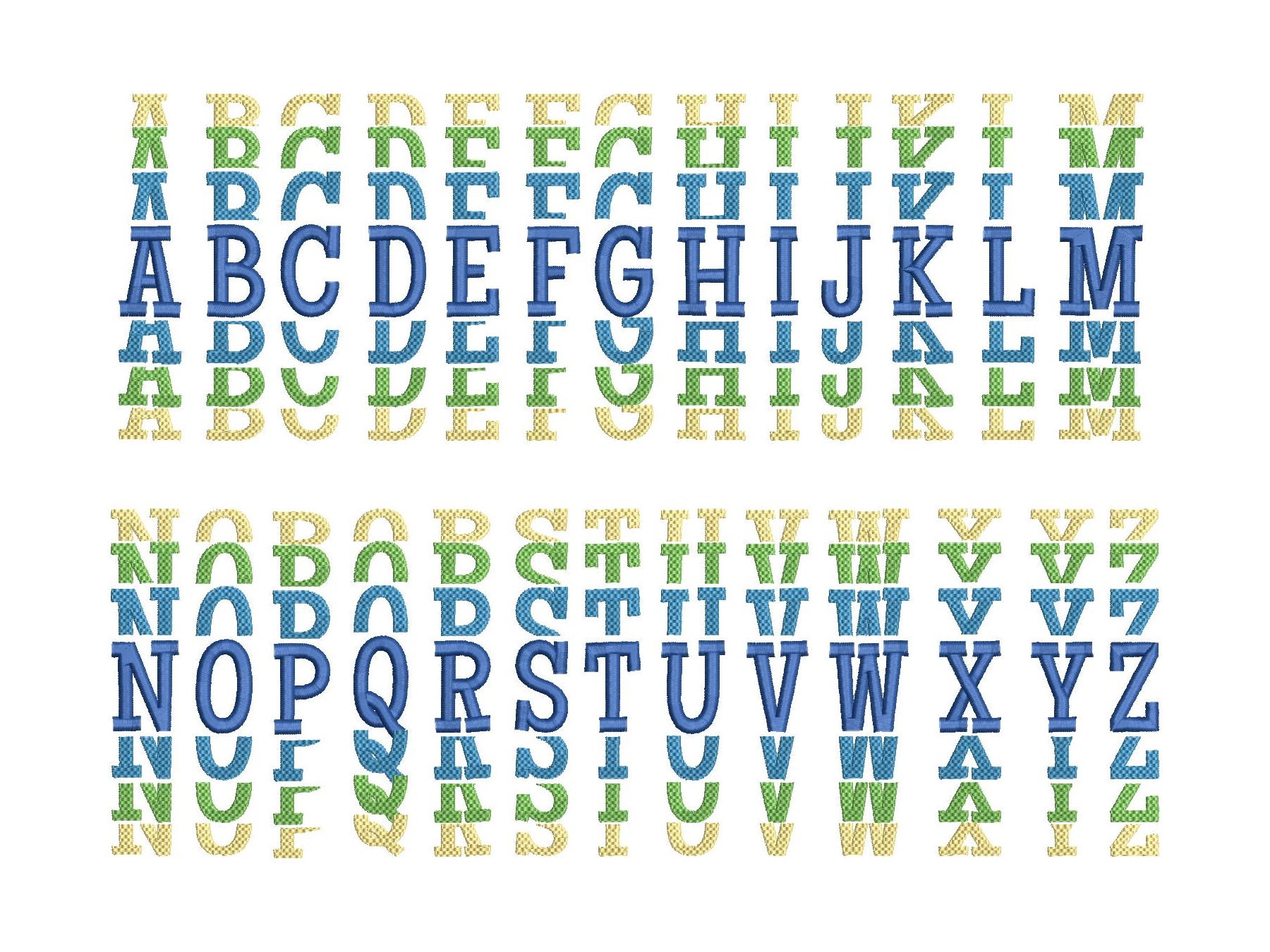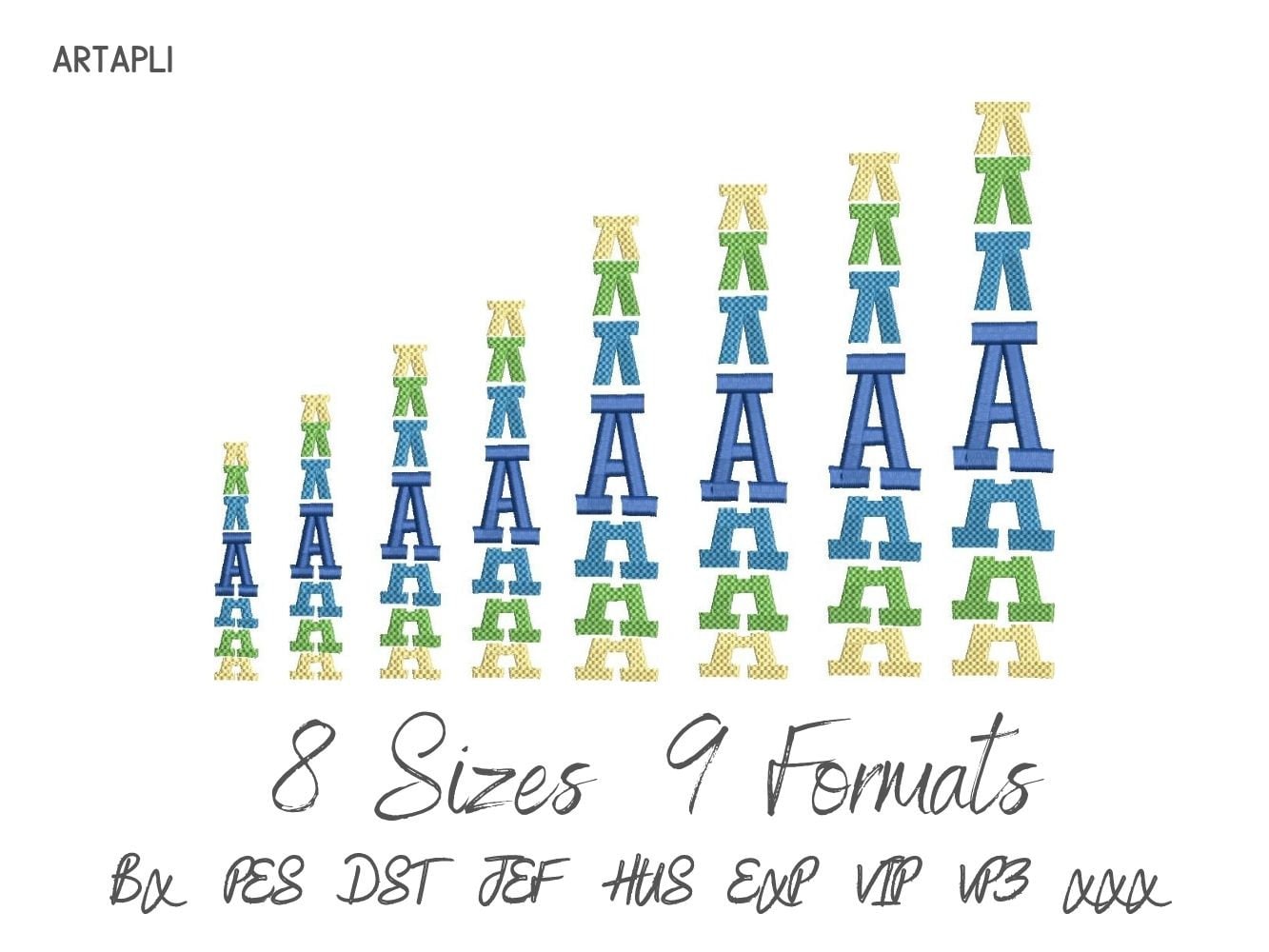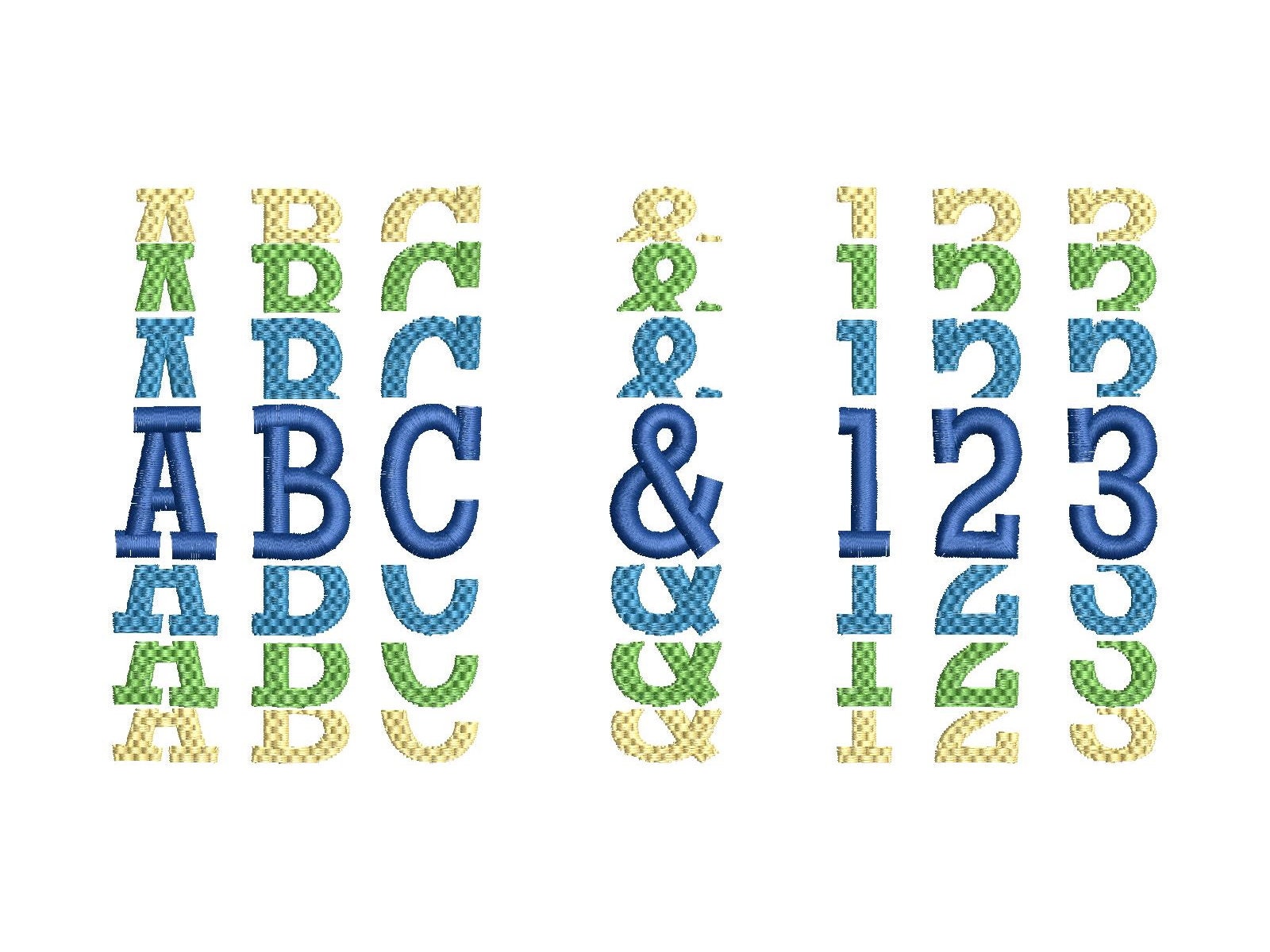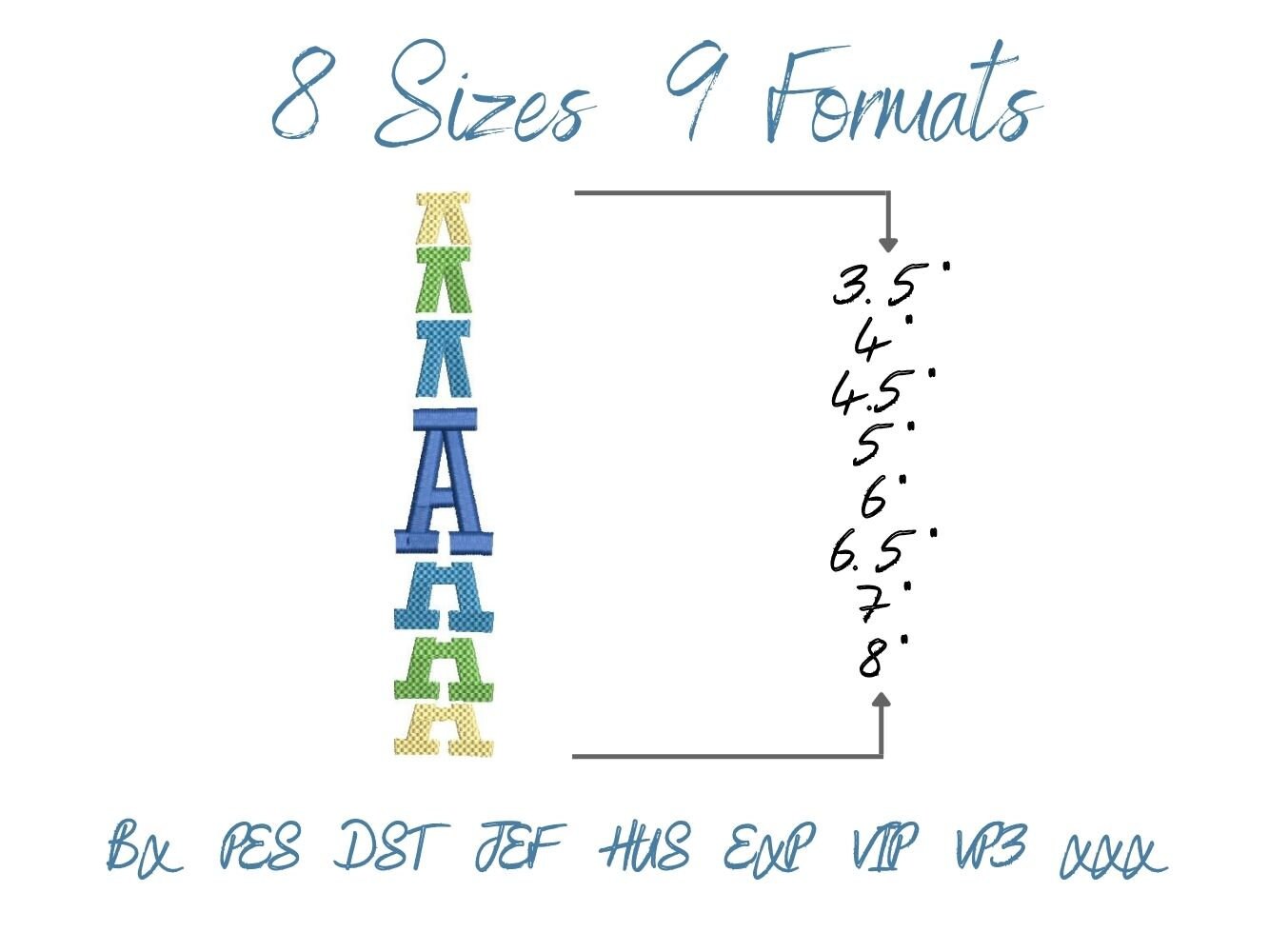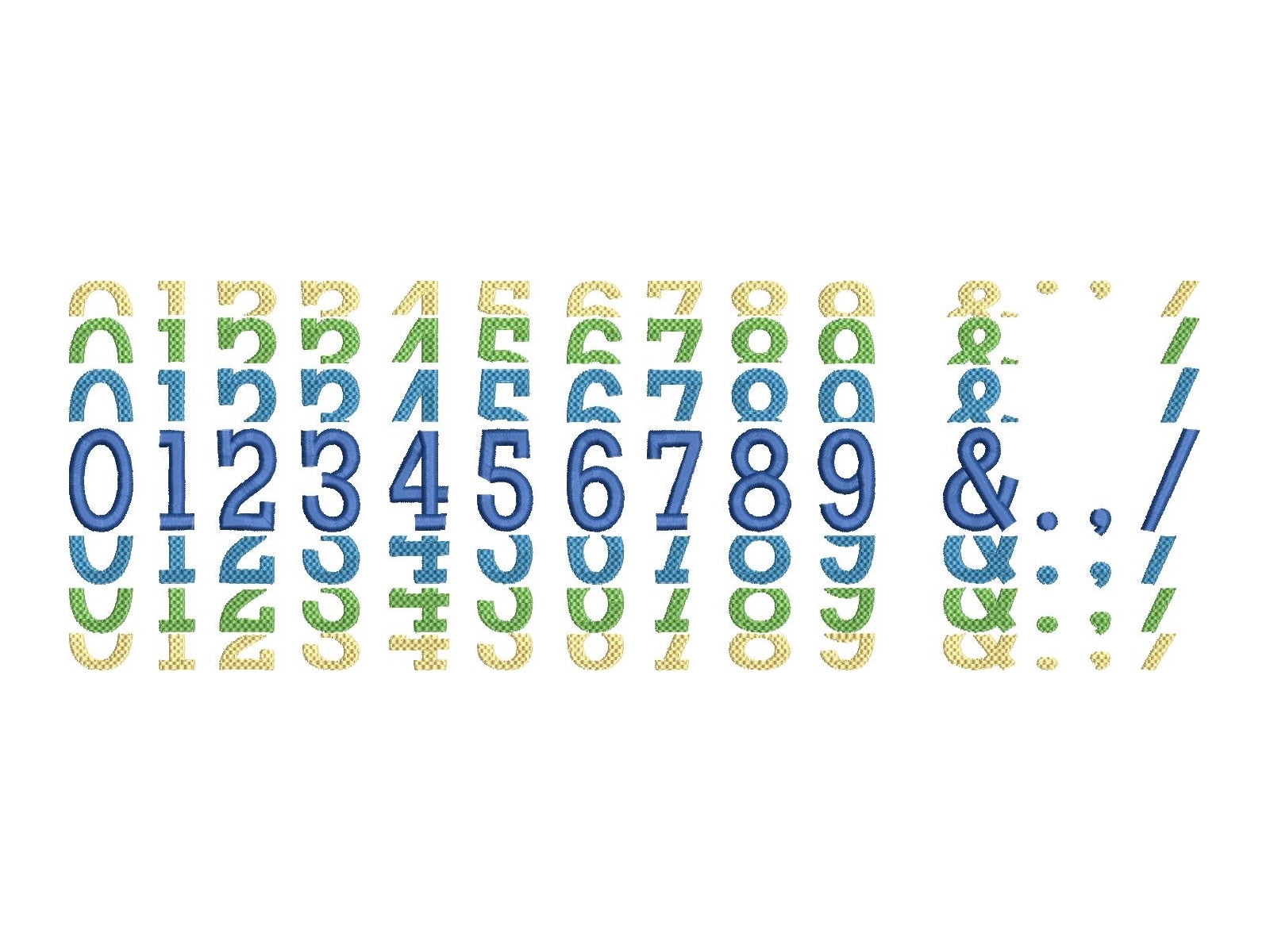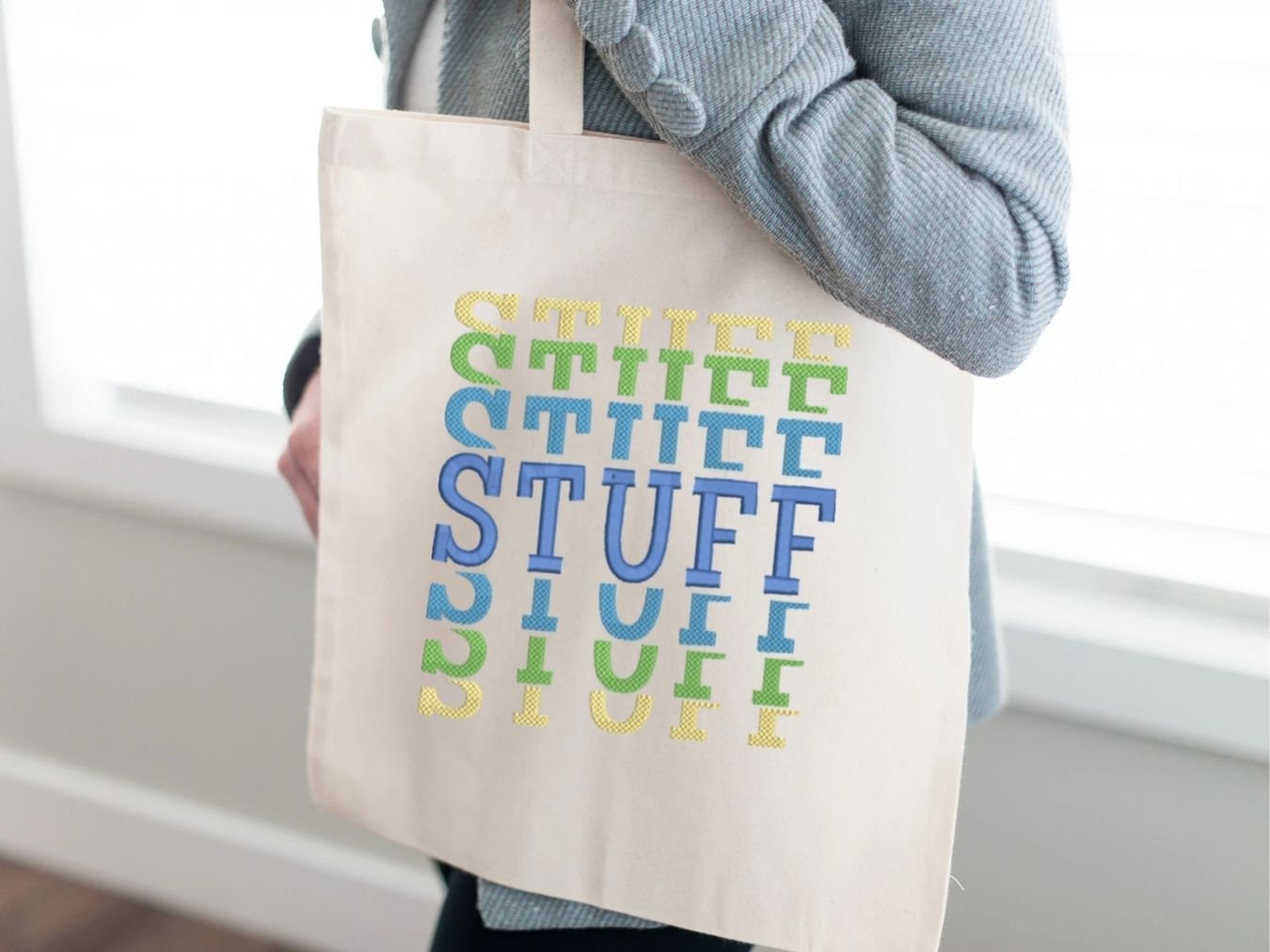
Stacked Font, satin stitch and fill trend alphabet letters awesome kids name any word machine embroidery designs assorted sizes, BX included
The whole alphabet, numbers and punctuation
A-Z uppercase and numbers 0-9, and special marks & . , /